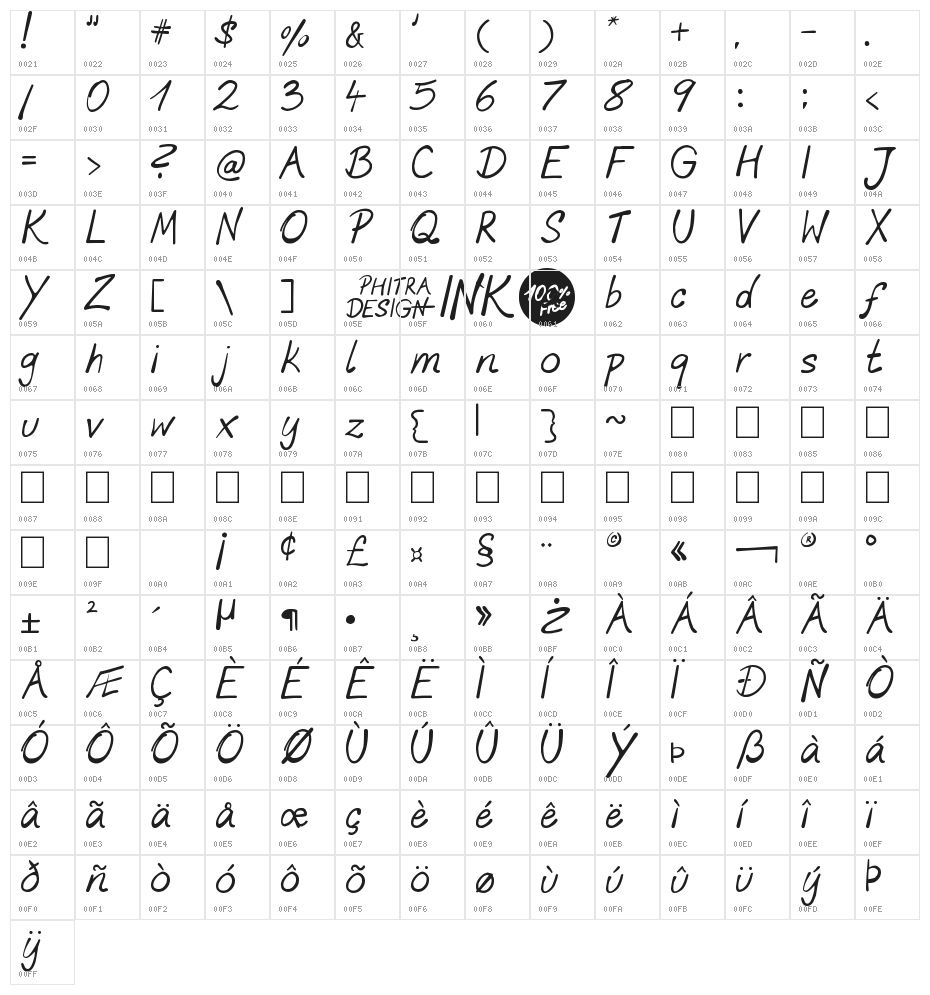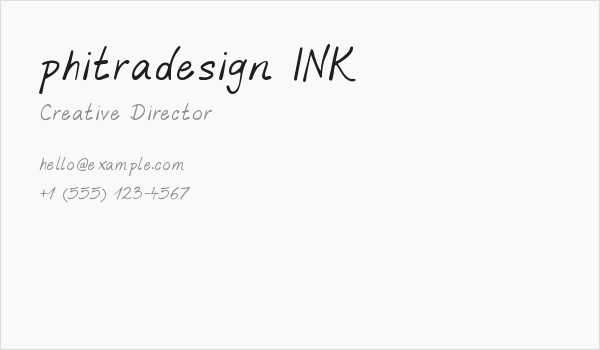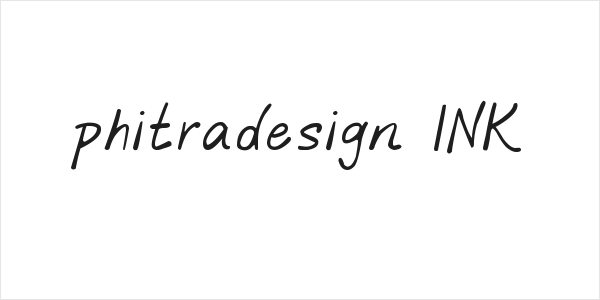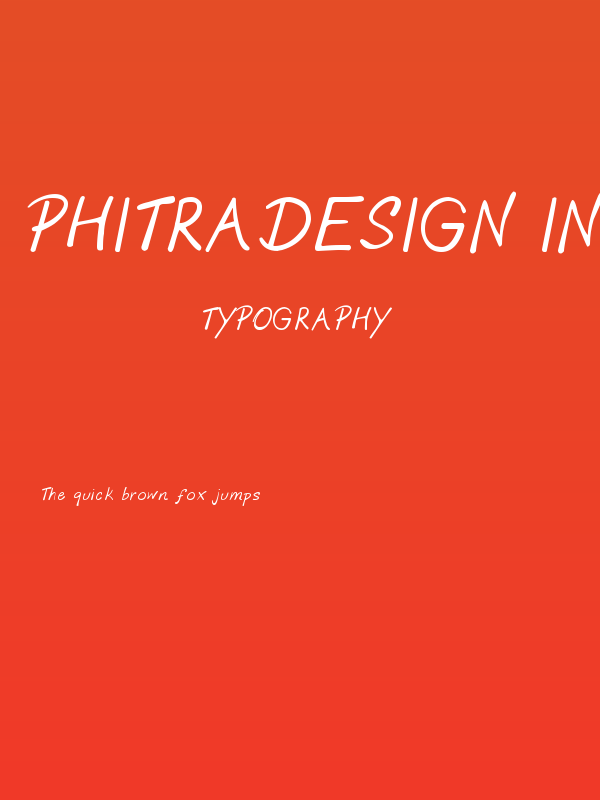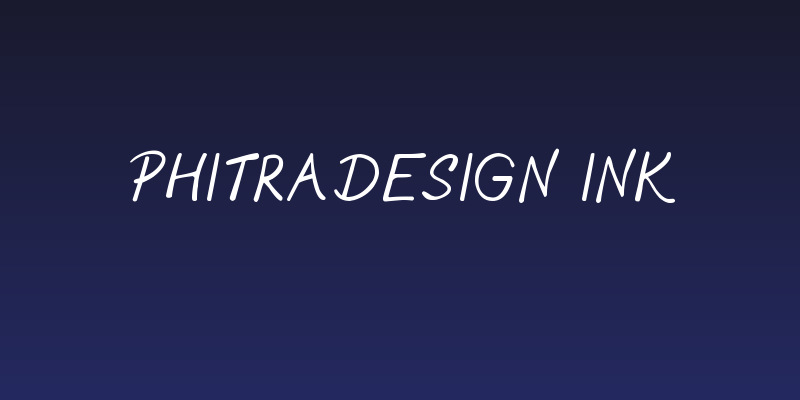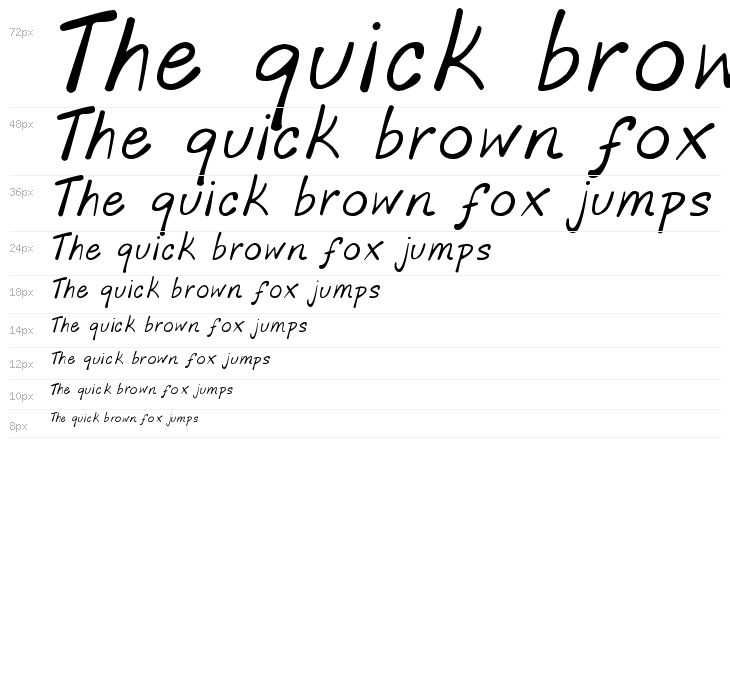
phitradesign INK Font
phitradesign INK Description
This font features a casual, handwritten style with a playful and informal appearance. The letters are slightly slanted, giving it a dynamic and energetic feel. The strokes are smooth and fluid, with a consistent thickness that maintains readability while adding a touch of personality. The uppercase and lowercase letters are well-balanced, and the numerals and special characters complement the overall style. This font is versatile and can be used in various design projects that require a personal touch.
| Use Case | Logos, Headlines, Informal Text |
| Proposed Projects | Ideal for greeting cards, invitations, personal branding, and social media graphics. |